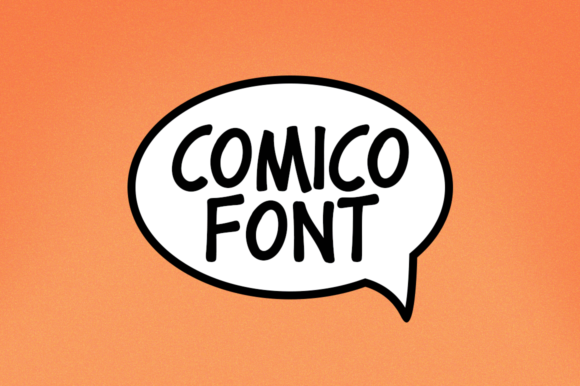
Introduction to Comico Font
Comico is a simple handwritten font that can be used for all chalkboard quotes or teaching material.
Its authentic look and feel will add a personal and realistic feel to your designs .
Why Choose Comico Font?
Comico Font offers exceptional quality and versatility, making it a valuable addition to your design toolkit. Whether you’re creating for personal projects or commercial use, Comico Font delivers professional results.